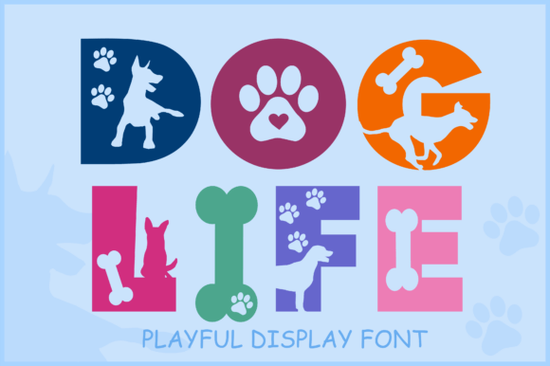
If you’ve ever wanted to add a playful, pet-friendly touch to your designs without starting from scratch, the Dog Life Font might be exactly what you’re looking for. This decorative typeface blends typography with dog-themed illustrations each letter subtly incorporates silhouettes of dogs, paw prints, and bones. It’s not just a font; it’s a design shortcut for anyone creating pet-related merchandise, social media graphics, or personalized gifts.
Whether you run a small pet boutique, sell custom mugs on Etsy, or enjoy making DIY crafts for dog lovers, this font helps you communicate warmth and personality in a single character set. And because it comes with bonus graphic elements in multiple file formats (SVG, PNG, DXF, and EPS), you can easily mix and match visuals across digital and physical projects from vinyl cutting to sublimation printing.
What makes Dog Life Font different from other decorative fonts?
Most decorative fonts rely on stylistic flourishes or trendy shapes, but Dog Life Font builds its charm around a specific theme: dogs. Instead of generic swirls or geometric lines, you get letters that feel personal and joyful like something you’d see on a handmade birthday card for a golden retriever’s “paw-ty.” The integration of dog motifs is subtle enough to remain readable but distinctive enough to stand out in logos, apparel quotes, or wall art.
Compare that to something like the Negative Space Army Stencil Font, which leans into bold, military-inspired minimalism, or the Hippie Flower Font, where floral patterns replace traditional letterforms. Each serves a different mood and audience. Dog Life Font fills a niche for creators who want to celebrate pets without sacrificing legibility or versatility.
Who should use this font?
This font works especially well for:
- Pet businesses – groomers, trainers, boutique owners creating branded packaging or signage.
- Print-on-demand sellers – designing T-shirts, tote bags, or mugs with phrases like “Dog Mom Life” or “Rescue Me.”
- Crafters and hobbyists – making stickers, greeting cards, or scrapbook layouts for fellow dog enthusiasts.
- Graphic designers – adding thematic consistency to pet adoption campaigns or veterinary clinic materials.
Because the pack includes vector (EPS, SVG) and raster (PNG) files alongside the font itself, you’re not limited to text-only use. Need a standalone paw print for a sticker sheet? It’s included. Want to layer a bone graphic behind a headline? You’ve got options.
How does it pair with other fonts?
Dog Life Font shines as a display font best used for headlines, short quotes, or accent text. For body copy or supporting information, pair it with a clean sans-serif like Helvetica, Arial, or even something hand-drawn but simpler, such as the Luna Font. Avoid combining it with other highly detailed decorative fonts (like the Soul Cards Font), as that can create visual clutter.
Pro tip: Use it at larger sizes (36pt+) to let the dog details show clearly. At smaller point sizes, the silhouettes may blur together, reducing both readability and charm.
If you’re creating anything for dog lovers whether it’s a birthday shirt for your pup’s human or a logo for a new dog-walking service Dog Life Font offers a cheerful, ready-made solution that saves time and adds heart.